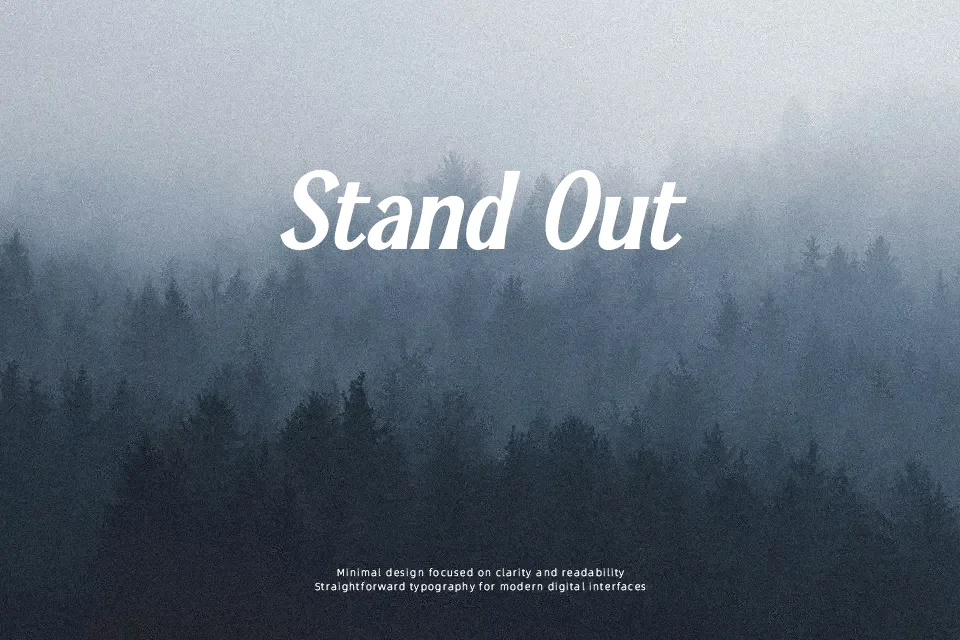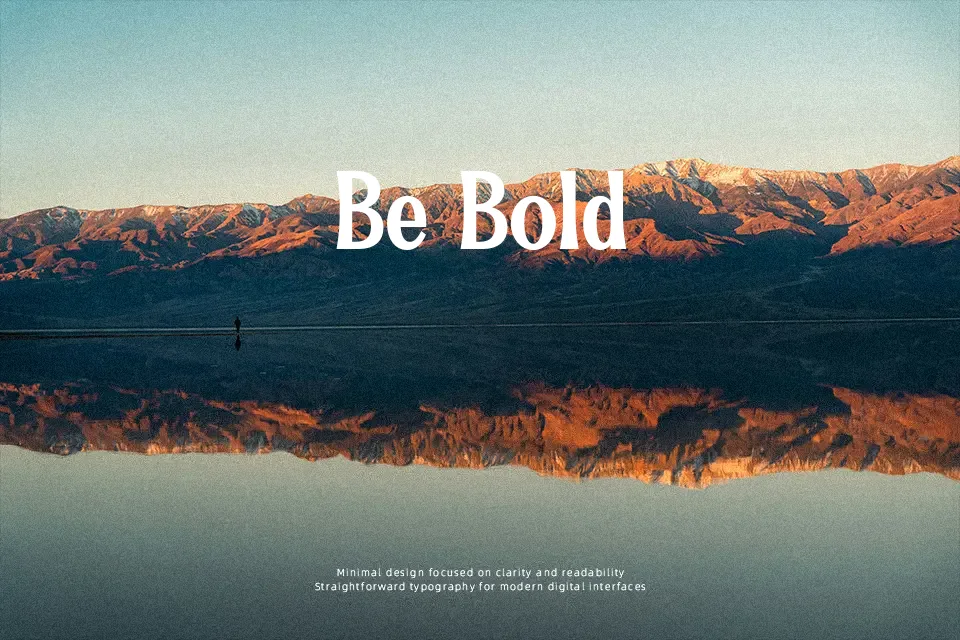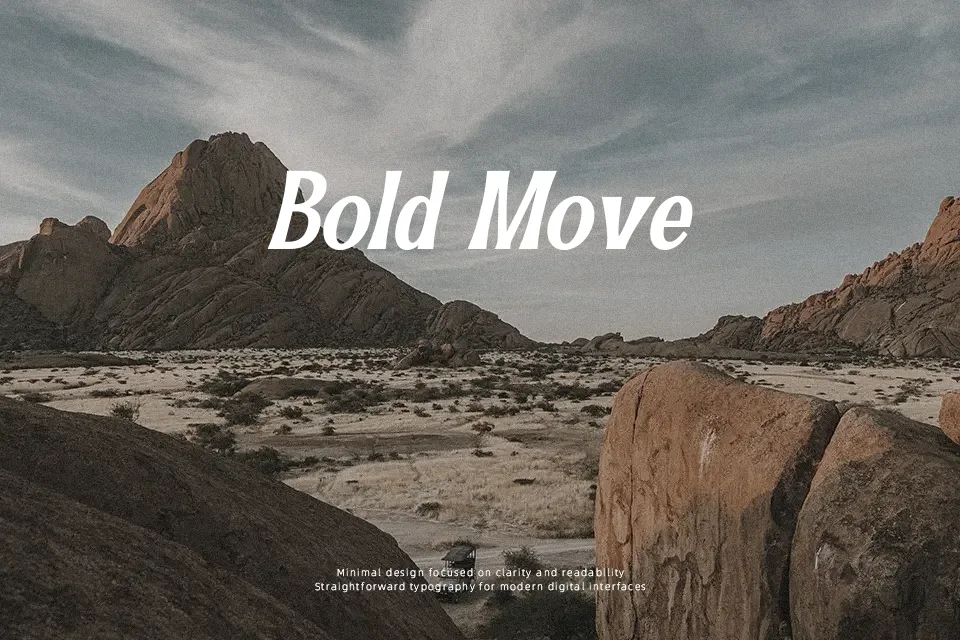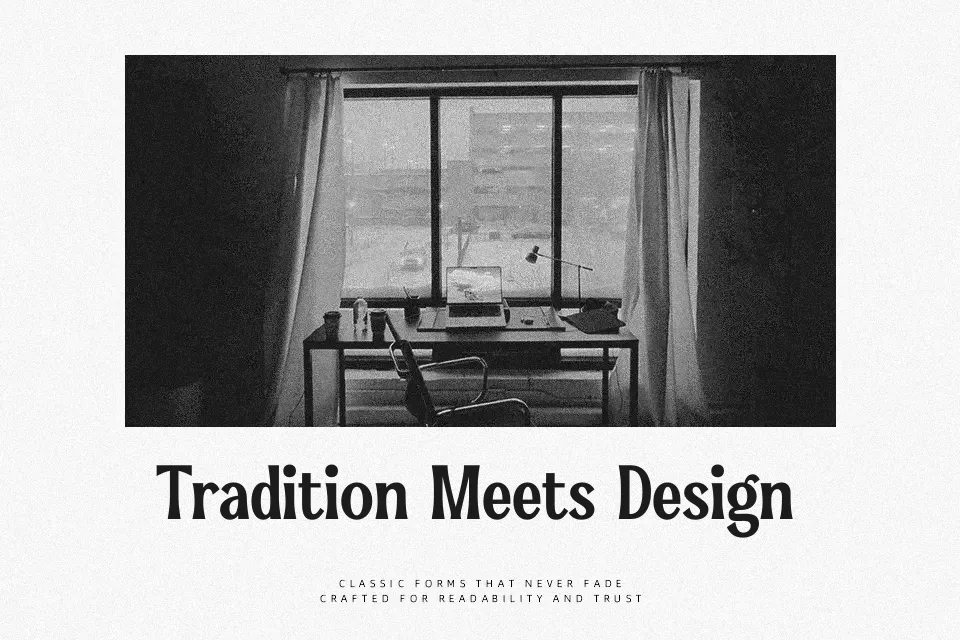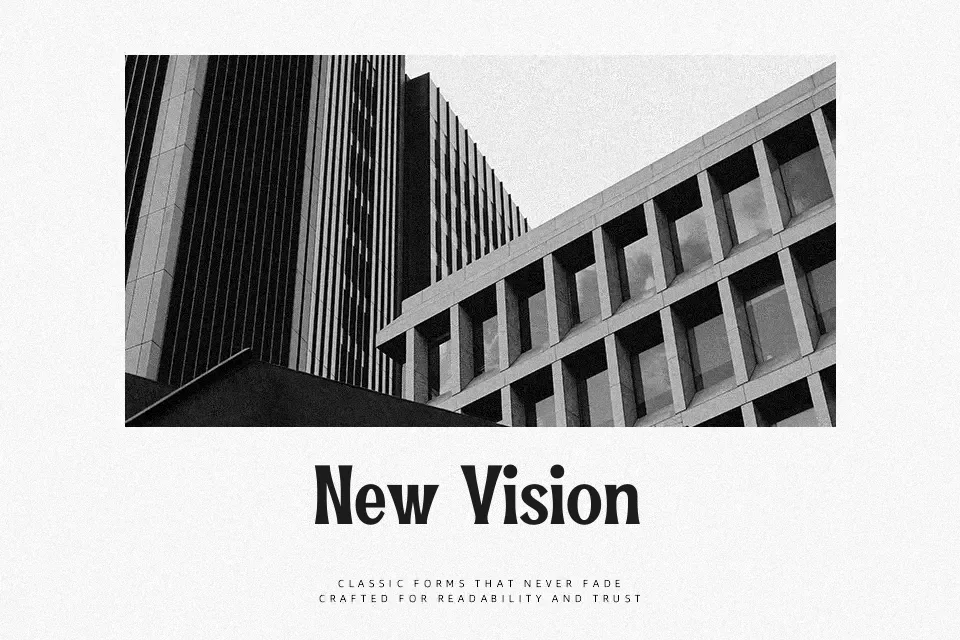
Pearl Hirenha Font
Pearl Hirenha Font uses high-contrast serif letterforms, fine hairlines, and rounded bracketed details to create a polished display presence. The uppercase characters feel structured, while the lowercase forms introduce softer curves and a more decorative rhythm. Spacing appears balanced for short headlines, logos, and packaging copy rather than dense text blocks. Its narrow details and changing stroke weight remain clearest at larger sizes. The typeface works well when a layout needs a composed, fashion-led tone, but small captions and extended paragraphs can make its delicate features harder to read comfortably.
Best For: cosmetic packaging,magazine headlines,fashion logos,invitation titles
Perfect for editorial, headline, and invitation, with a creative and display style.